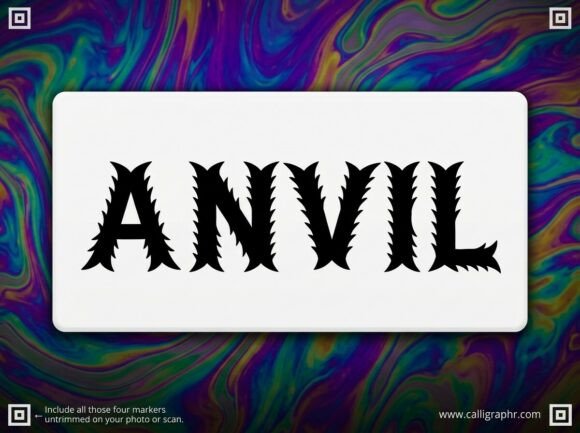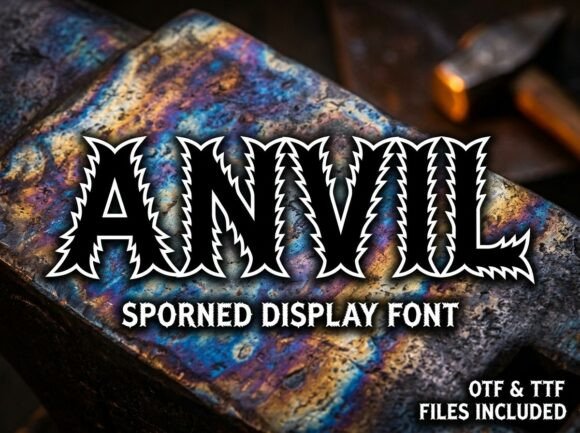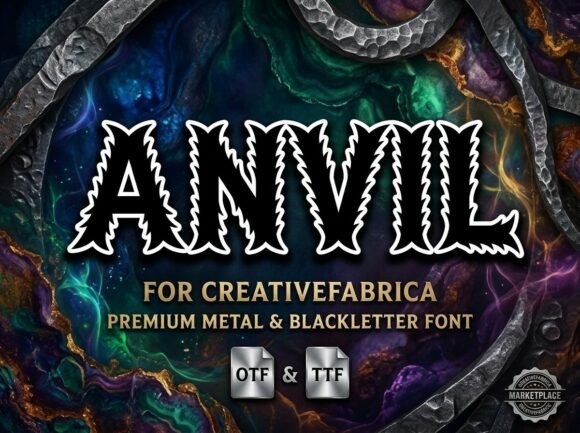
Unleash Your Creativity with Anvil Font: The Ultimate Display Serif for Legendary Brands
In the world of typography, few fonts have managed to capture the essence of power, craftsmanship, and mythology as effectively as Anvil. This display serif font is designed to evoke a sense of strength, resilience, and ruggedness, making it the perfect choice for designers and crafters looking to forge a legendary identity for their brand. With its bold, high-contrast letterforms and unique “jagged-edge” contours, Anvil is a font that demands attention and inspires creativity.
The Mythic-and-Metallic Soul of Anvil
Anvil’s design is deeply rooted in the intersection of ancient blacksmith craftsmanship and modern dark fantasy branding. The font’s bold, structural weight and aggressive personality are reminiscent of the raw power and energy of a blacksmith’s forge. At the same time, its rhythmic, hand-drawn contours and sharp, horn-like serifs evoke the mythological and mystical connotations of dark fantasy. This blend of old and new, traditional and modern, makes Anvil a truly unique and captivating font.
Crafting a Legendary Identity with Anvil
So, what makes Anvil the premier choice for designers and crafters looking to create a legendary brand identity? For starters, the font’s heavy structural weight and aggressive personality make it perfect for high-impact applications such as independent tabletop RPG manuals, artisanal bladesmith logos, and metal band album art. Additionally, Anvil’s bold, high-contrast letterforms and unique contours make it ideal for creating eye-catching social media headers that demand attention.
Applications for Anvil
Anvil’s versatility and range make it suitable for a wide range of applications, including:
- Independent Tabletop RPG Manuals: Add a touch of mythology and adventure to your RPG manuals with Anvil’s bold, high-contrast letterforms and unique contours.
- Artisanal Bladesmith Logos: Forge a legendary brand identity with Anvil’s powerful, metallic design, perfect for artisanal bladesmiths and craftsmen.
- Metal Band Album Art: Give your metal band album art a bold, aggressive edge with Anvil’s heavy structural weight and rhythmic contours.
- Social Media Headers: Create high-impact social media headers that demand attention with Anvil’s bold, high-contrast letterforms and unique design.
Designing with Anvil
When designing with Anvil, the possibilities are endless. Here are a few tips to get you started:
- Experiment with Contrast: Anvil’s bold, high-contrast letterforms make it perfect for designs that require a high level of visual impact. Experiment with contrasting colors, textures, and backgrounds to create visually stunning designs.
- Play with Scale: Anvil’s unique contours and bold design make it suitable for a wide range of sizes and applications. Experiment with different scales and sizes to create dramatic effects.
- Add Texture and Patterns: Anvil’s metallic design and rhythmic contours make it perfect for adding texture and patterns to your designs. Experiment with different textures and patterns to create visually interesting designs.
In conclusion, Anvil font is a powerful display serif that captures the essence of mythology, craftsmanship, and modern dark fantasy branding. With its bold, high-contrast letterforms, unique contours, and heavy structural weight, Anvil is the perfect choice for designers and crafters looking to forge a legendary brand identity. Whether you’re creating independent tabletop RPG manuals, artisanal bladesmith logos, metal band album art, or high-impact social media headers, Anvil is the ultimate font for creating a lasting impression.